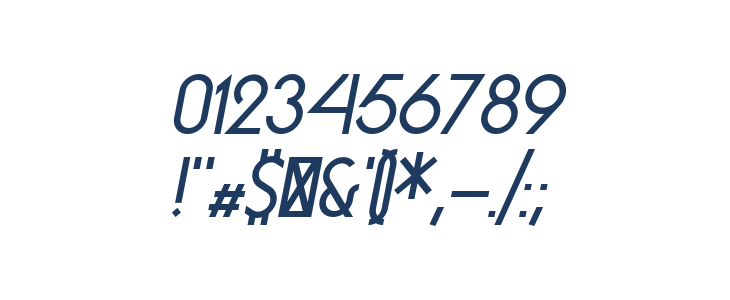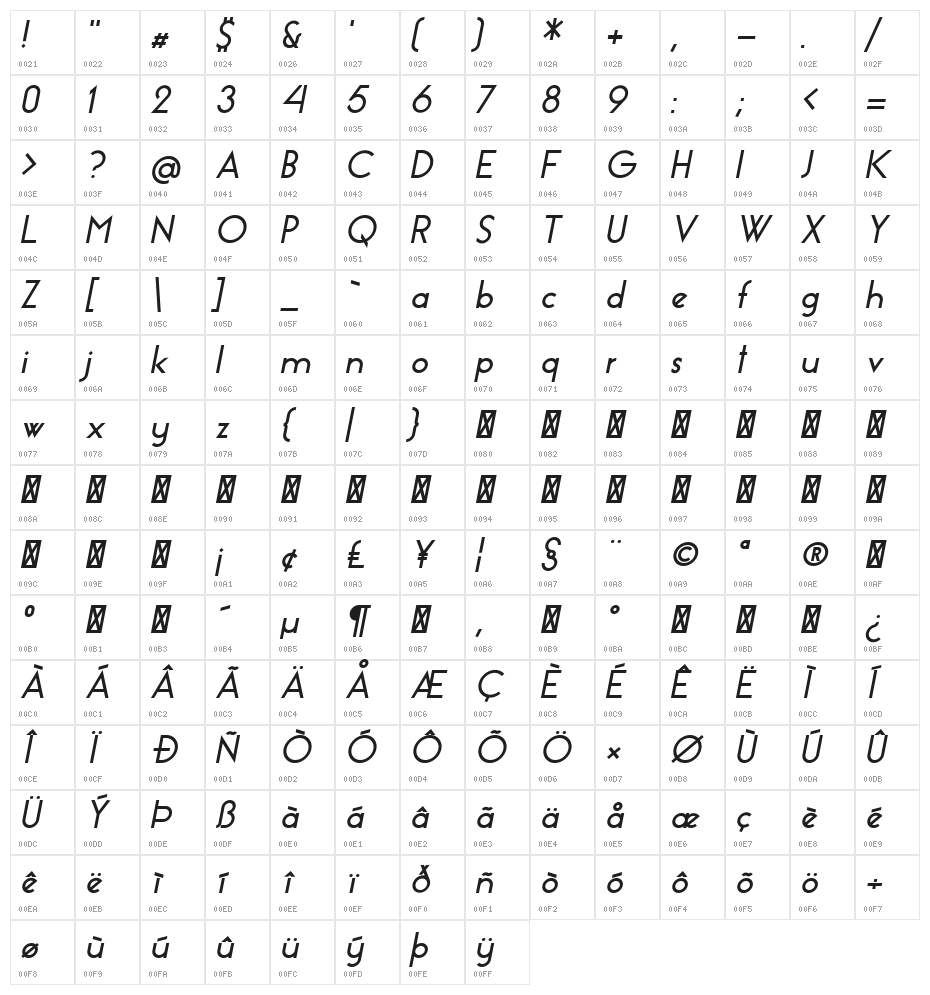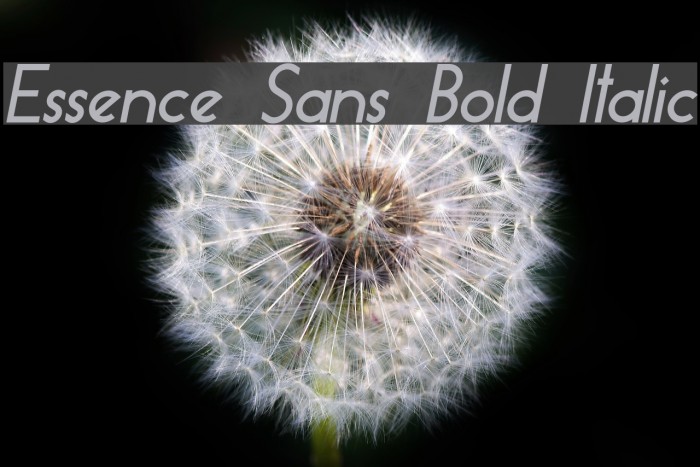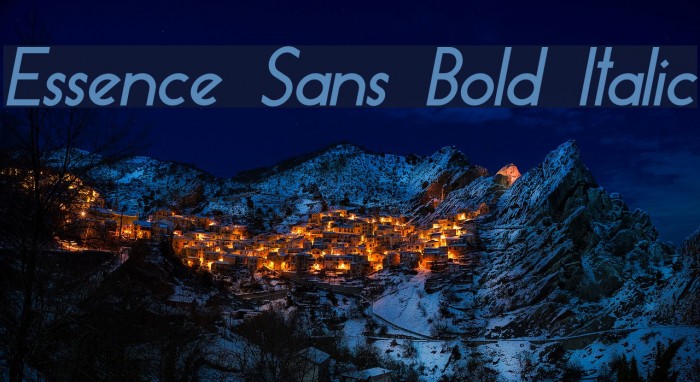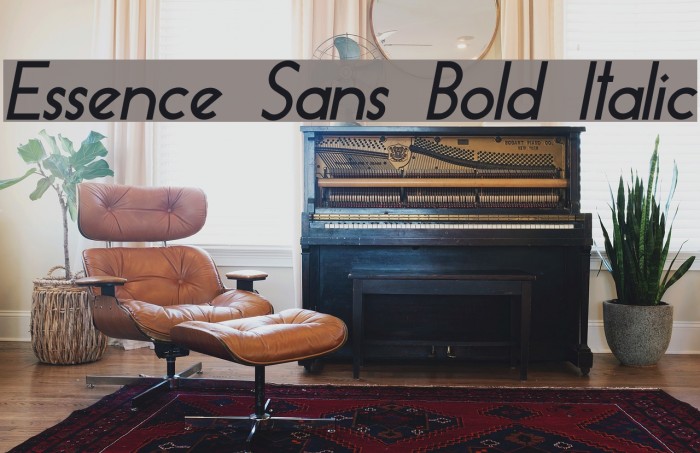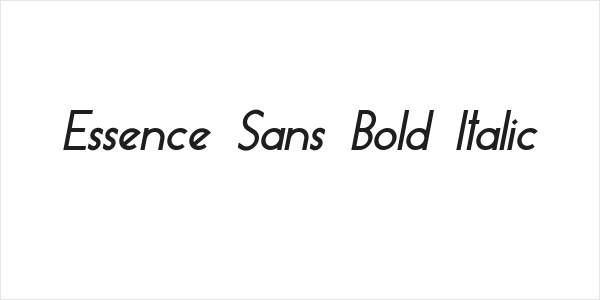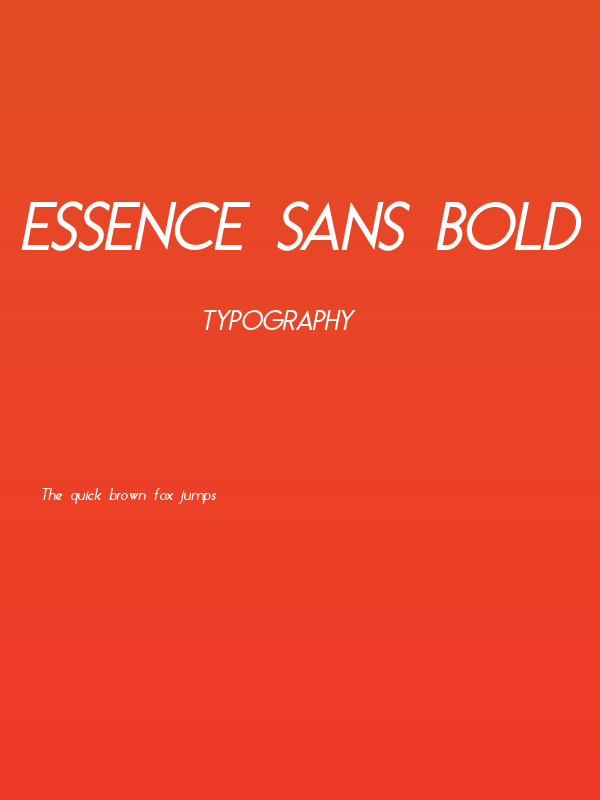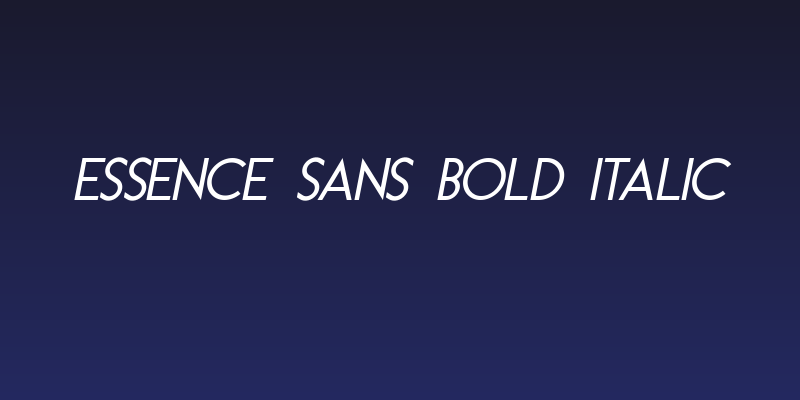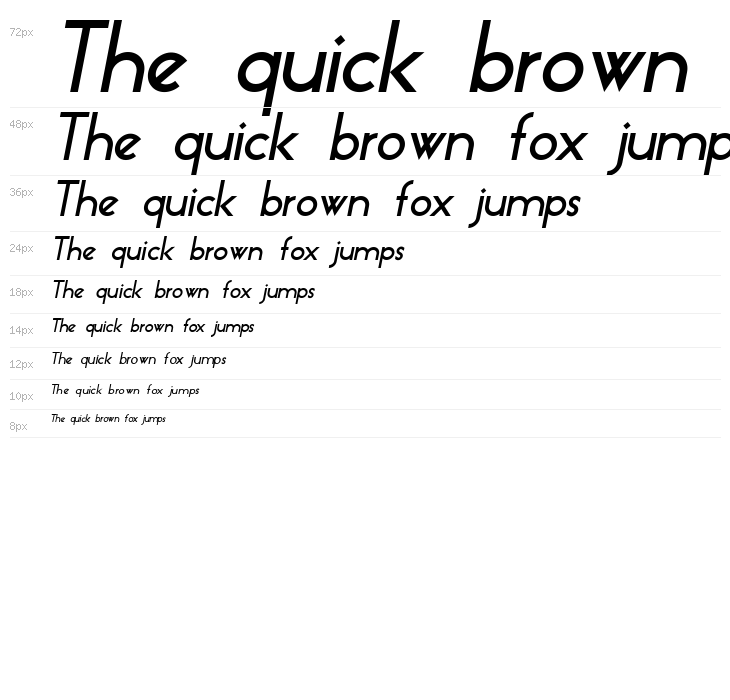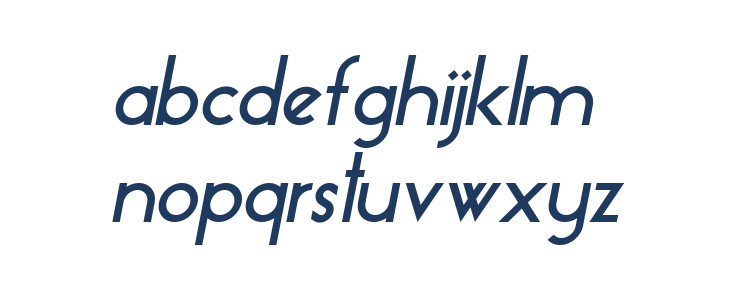
Essence Sans Bold Italic Font
Essence Sans Bold Italic Description
This font exhibits a sleek and modern sans-serif style with a bold and italicized appearance. The characters are slightly slanted, giving a dynamic and forward-moving impression. The strokes are consistent in thickness, contributing to a clean and uniform look. The uppercase letters are tall and commanding, while the lowercase letters maintain a balanced and approachable feel. Numbers are clear and legible, making them suitable for various applications. Special characters are well-defined, enhancing the font's versatility. Overall, this font combines elegance with a contemporary edge, making it ideal for a range of design projects.
| Use Case | Headlines, Logos, Advertising |
| Proposed Projects | Ideal for branding, advertising, headlines, and digital media projects where a modern and bold statement is desired. |